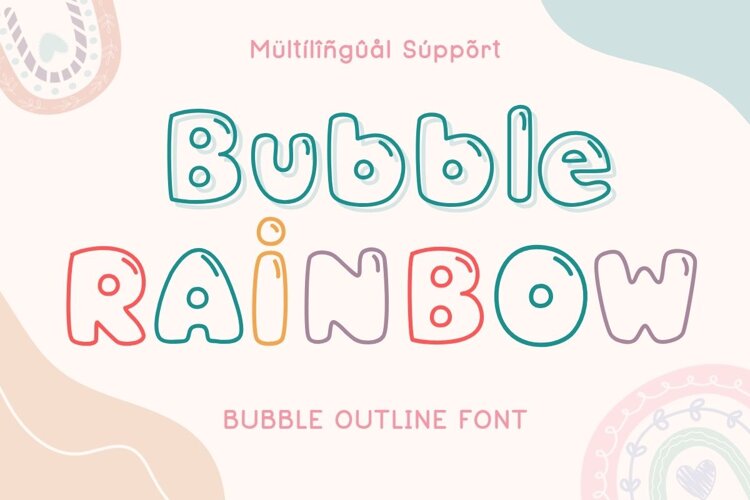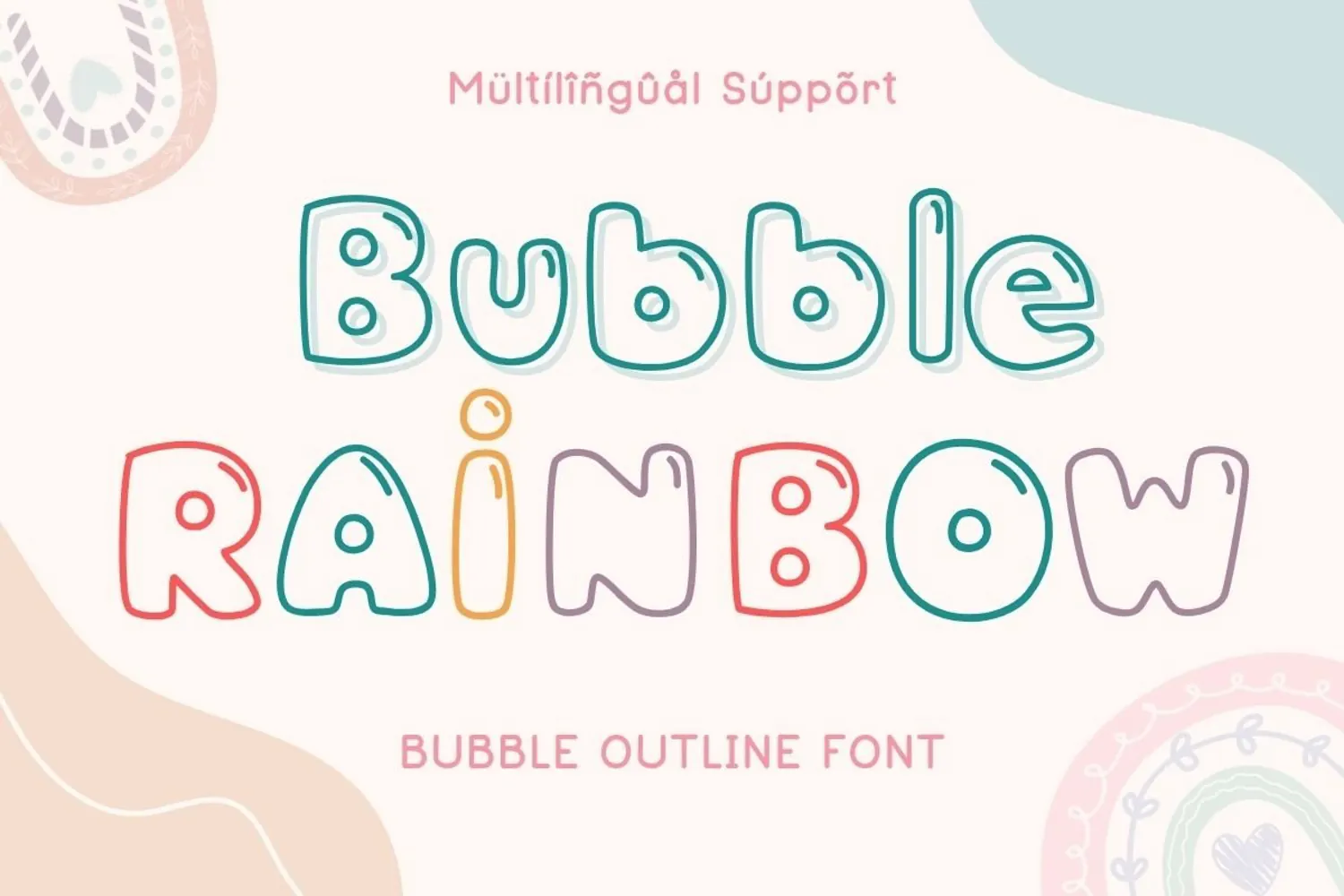
Bubble Rainbow is a cute bubble outline font with playful rounded letters and a fun hand-drawn look. Its bold outline style makes it easy to read and perfect for colorful craft projects, kids designs, birthday cards, classroom materials, stickers, shirts, mugs, tote bags, party decor, and printable designs.
This font includes uppercase, lowercase, numerals, punctuation, and multilingual support. It works well for Cricut, Silhouette, sublimation, Canva-style designs, and creative DIY projects.